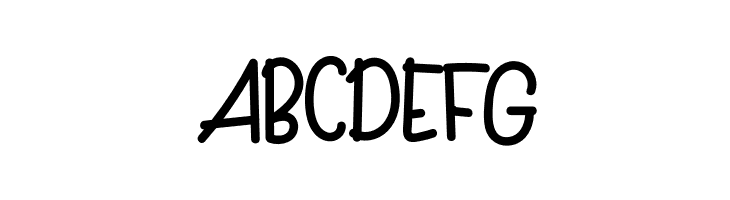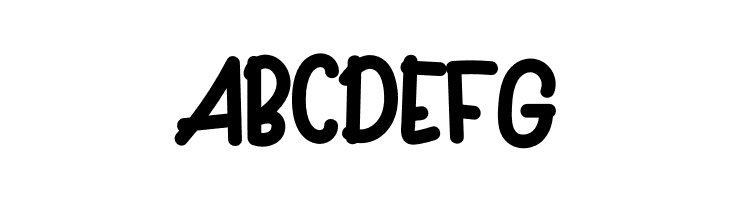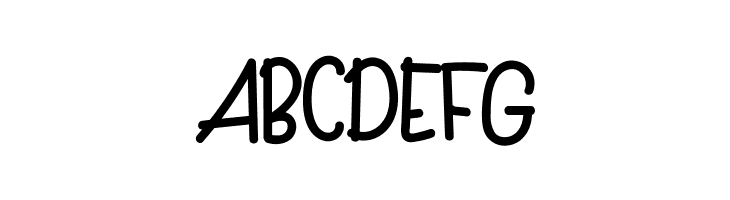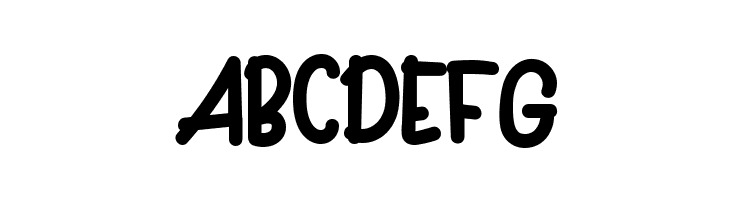
A bold, playful handwritten font with rounded letterforms.
A playful, informal handwritten font with rounded, smooth letterforms.
A playful, bold handwritten font with rounded, slightly irregular letterforms.
A playful, handwritten font with rounded, slightly irregular letters.
A bold, playful font with rounded edges and a handwritten style.
A bold, playful handwritten font with rounded characters.